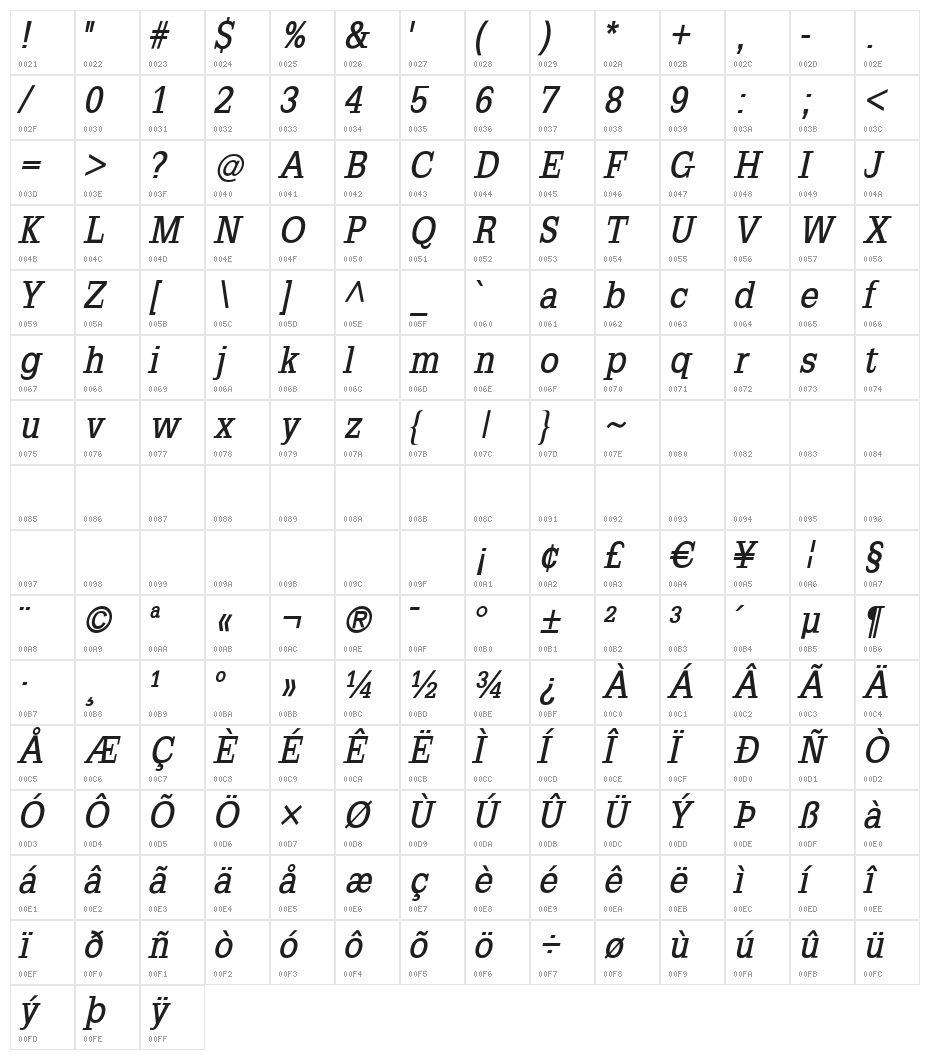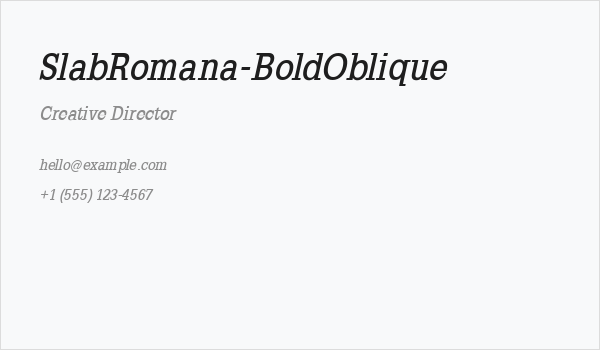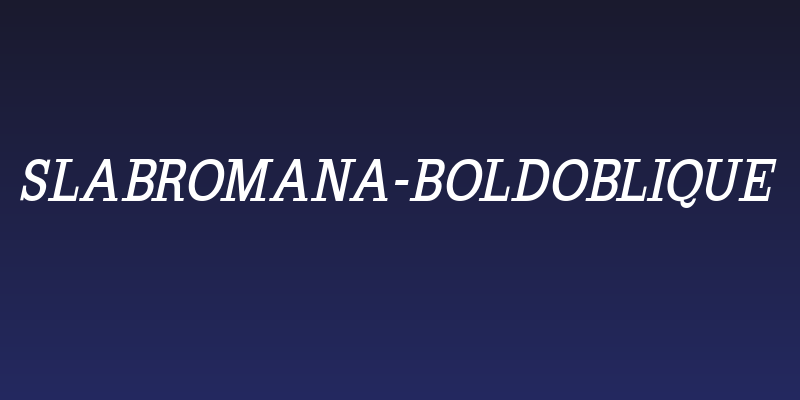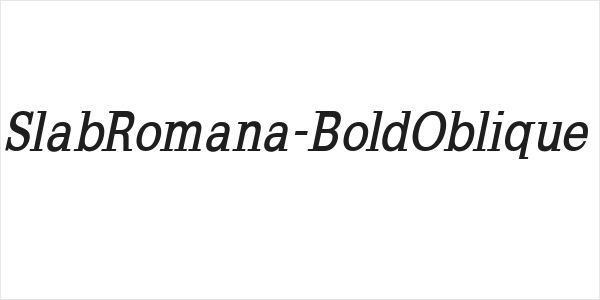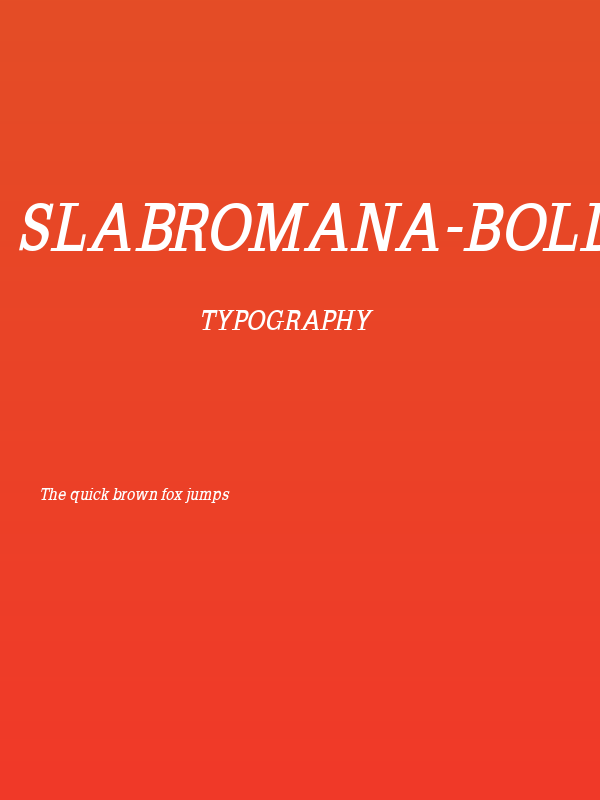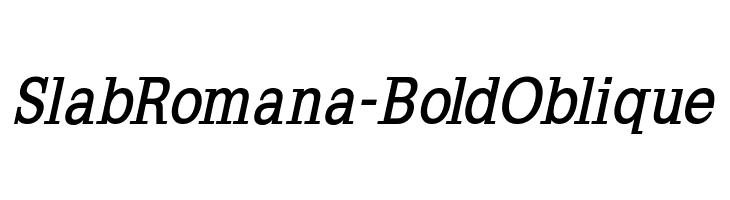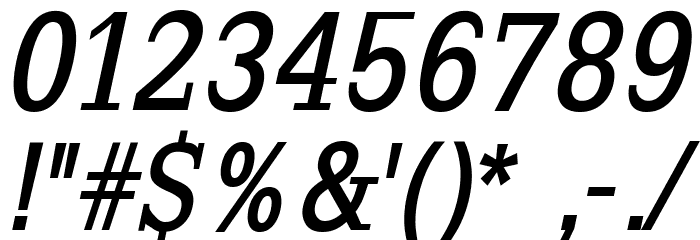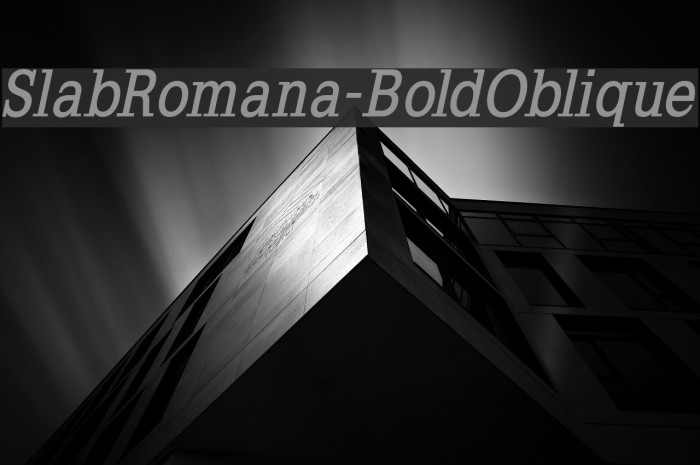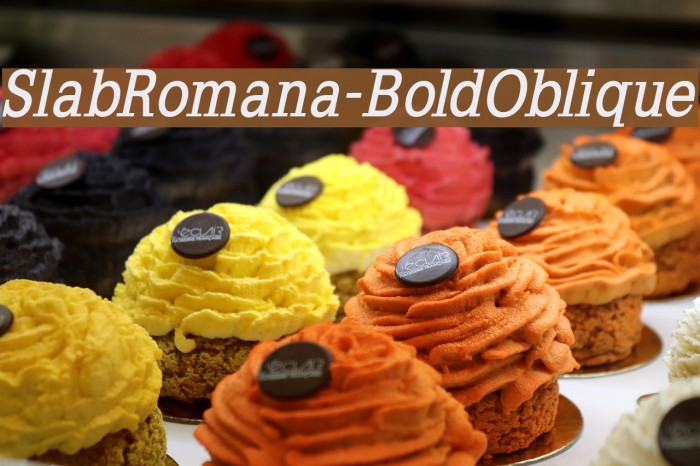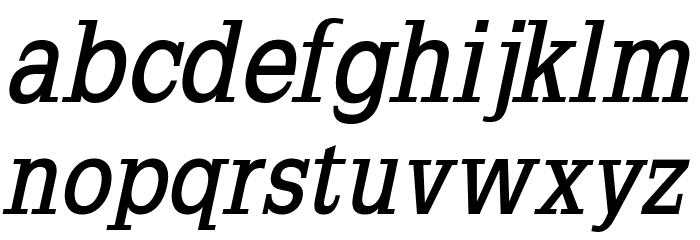
SlabRomana-BoldOblique Font
SlabRomana-BoldOblique Description
This font exhibits a bold and oblique style, characterized by its strong, thick strokes and a noticeable slant to the right. The serifs are prominent and add a classic touch to the overall design, making it stand out with a sense of authority and elegance. The uppercase letters are well-defined with a consistent weight, while the lowercase letters maintain a harmonious balance with slightly rounded forms. The numerals are clear and robust, ensuring readability. Special characters are designed with the same attention to detail, providing a cohesive look across all glyphs. This font's boldness and oblique nature make it suitable for impactful and dynamic designs.
| Overall Style | Classic |
| Proposed Projects | Ideal for headlines, branding projects, posters, and any design requiring a bold, authoritative presence. |